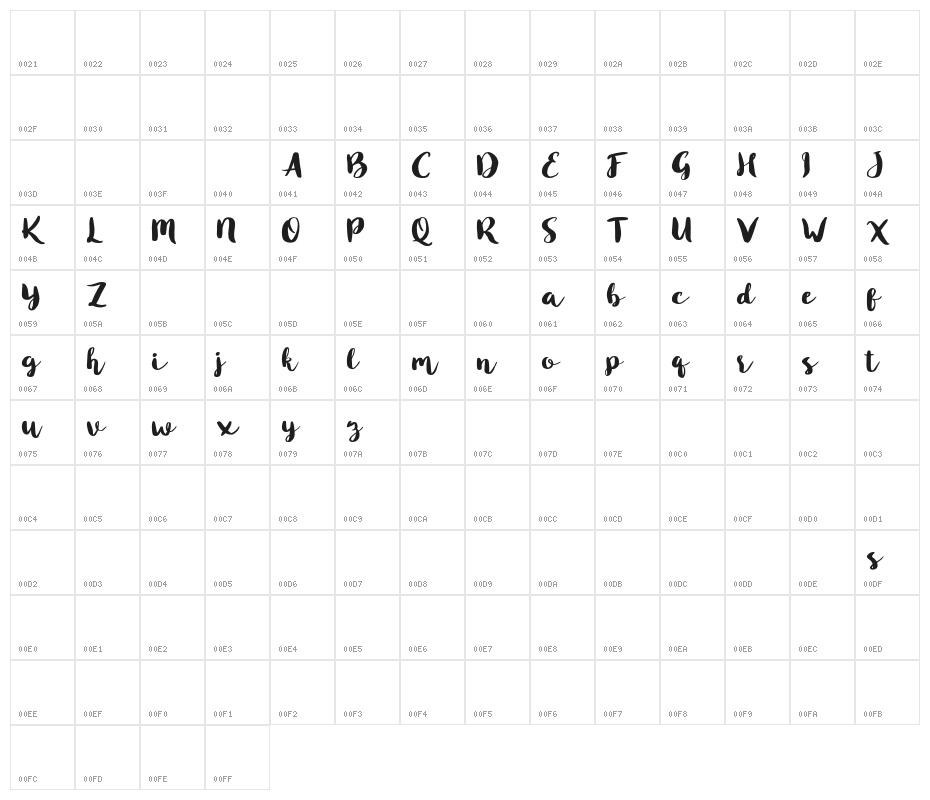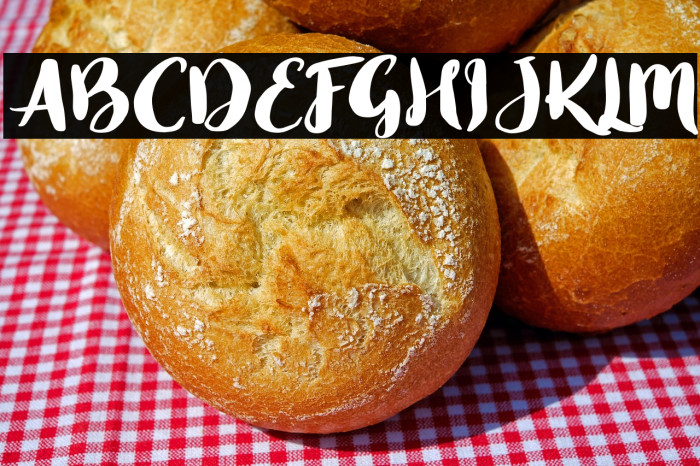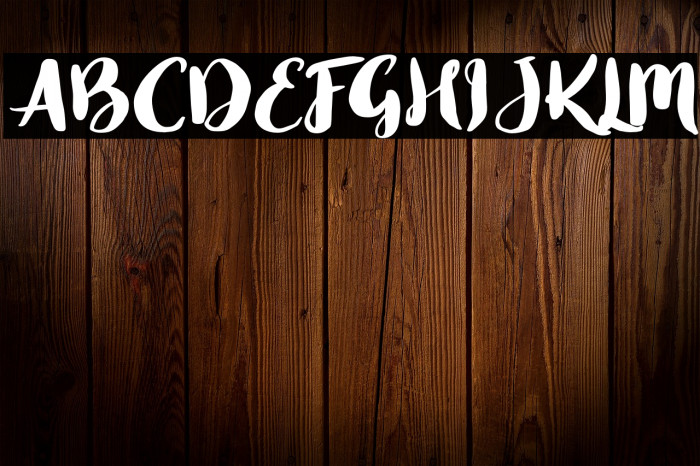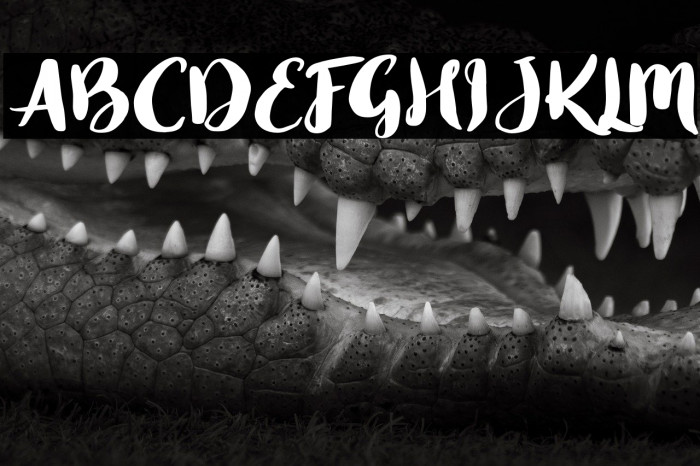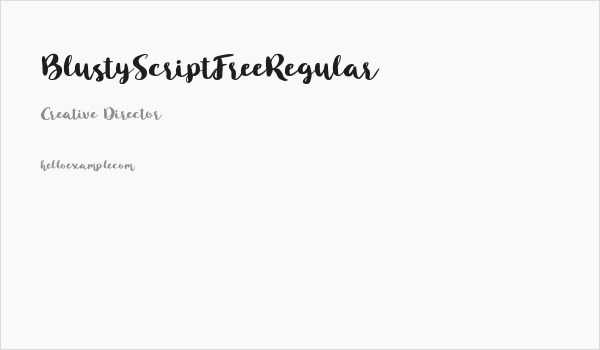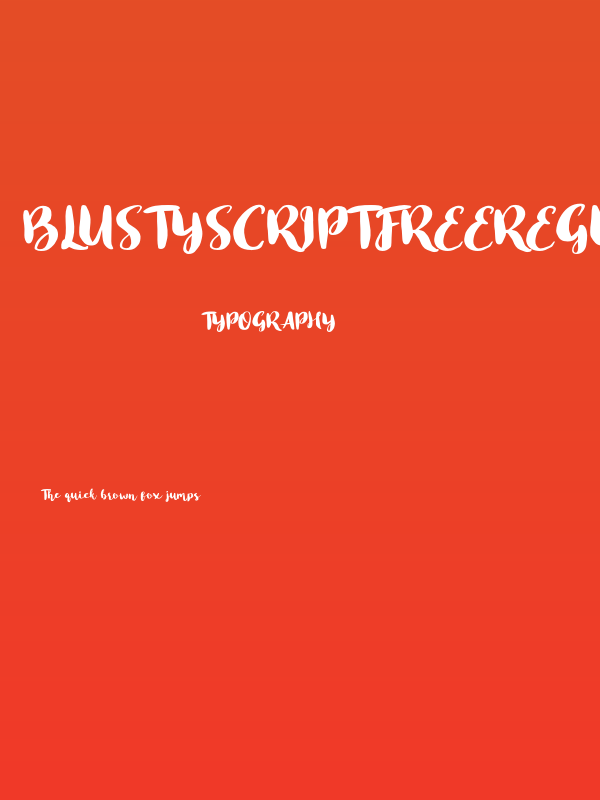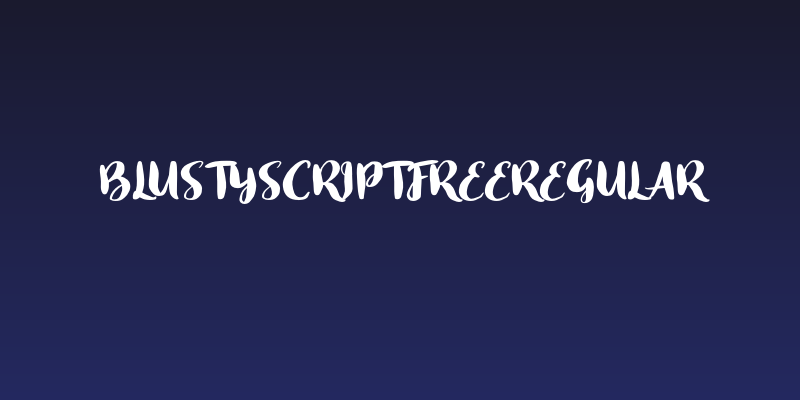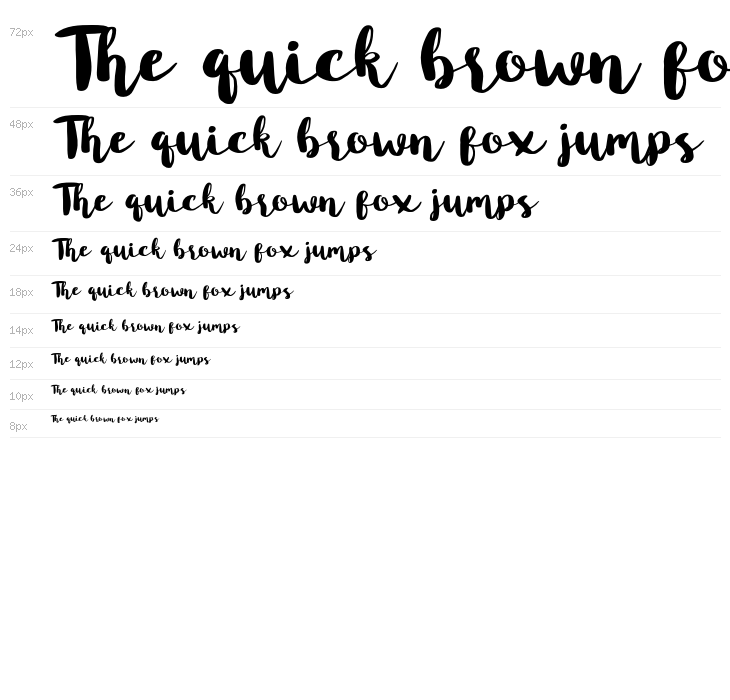
BlustyScriptFree-Regular Font
BlustyScriptFree-Regular Description
This font features a bold, flowing script style with a hand-drawn appearance. The letters are connected, creating a smooth and continuous flow that mimics natural handwriting. The strokes are thick and consistent, giving the font a strong presence. The uppercase letters are slightly more ornate, with elegant curves and loops, while the lowercase letters maintain a cohesive and fluid design. This font exudes a casual yet sophisticated charm, making it suitable for a variety of creative projects.